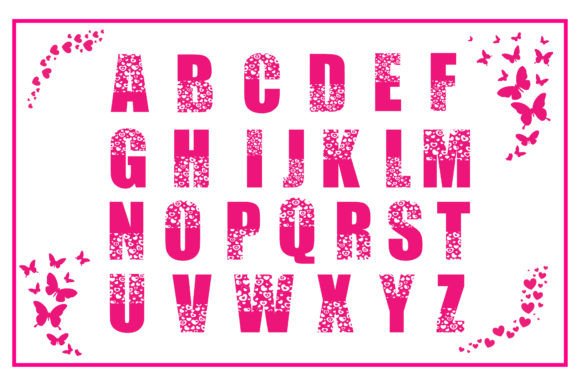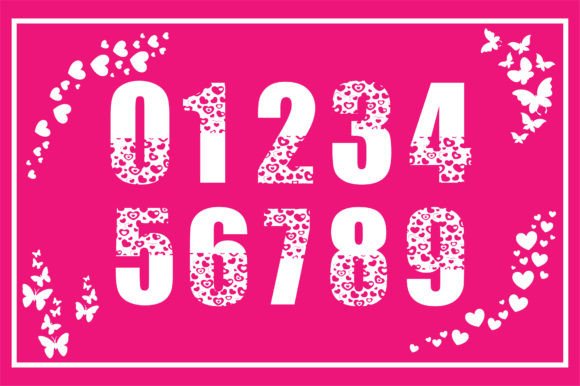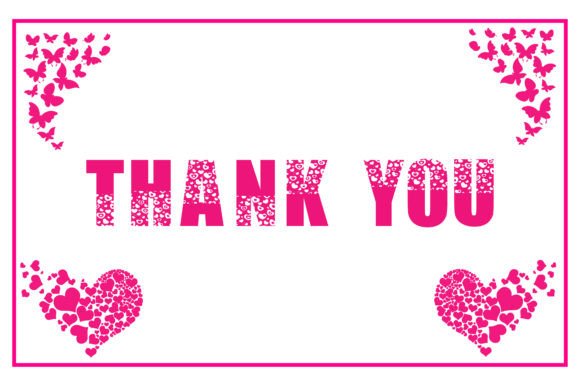
Introduction to Heart Spangled Font
Heart Spangled is a bold and incredibly elegant decorative font featuring lovely hearts as ornaments.
Its original look will appeal to a wide range of crafty ideas, from letterheads and titles to stationery Beautiful and unique, it will make a great asset to your fonts library.